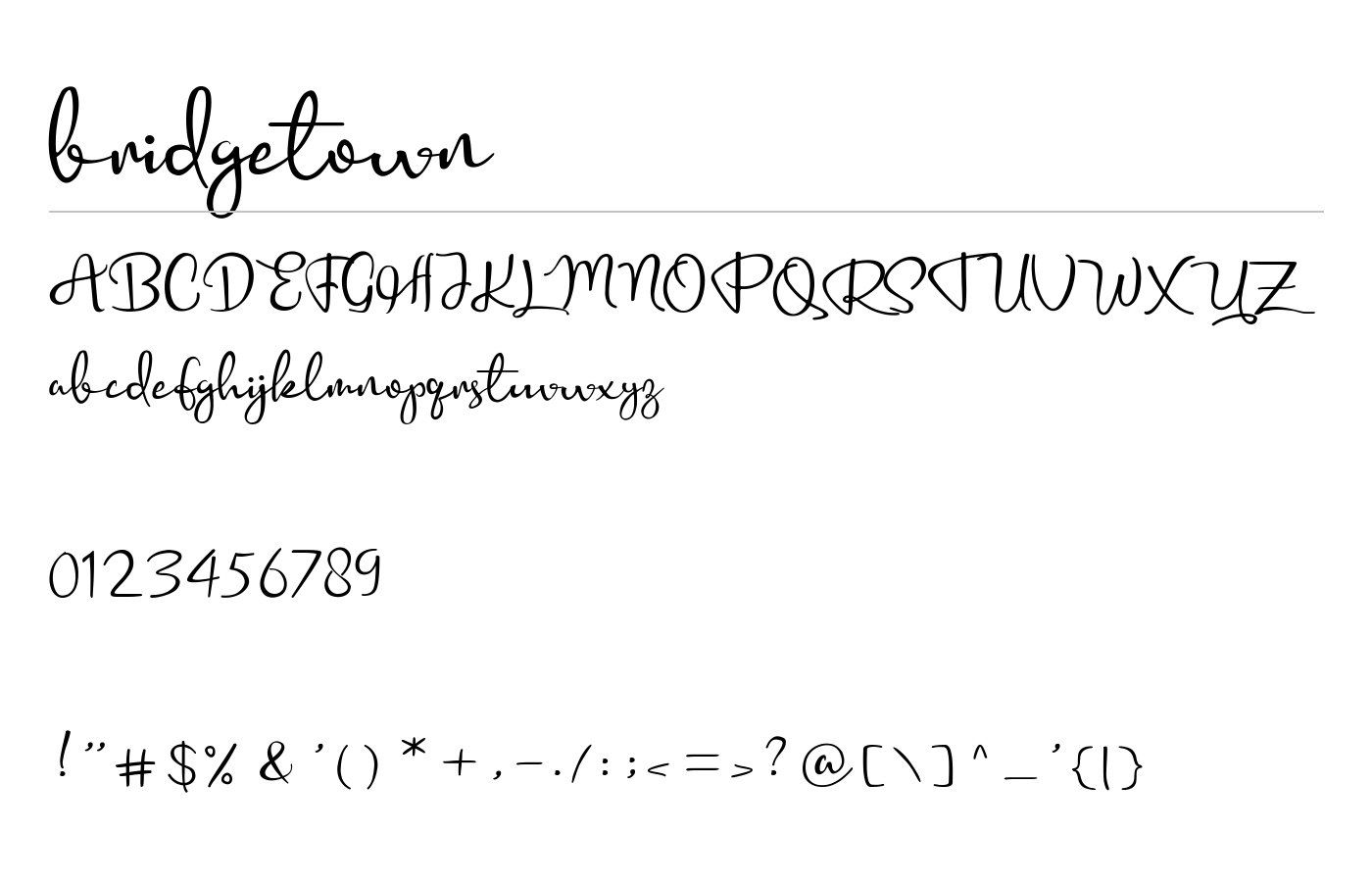
Bridgetown is a delicate and charming script font with a hand-drawn feel, featuring thin, graceful strokes and playful, looping letterforms. Its casual yet elegant style makes it perfect for creative branding, invitations, and feminine designs that want to convey a personal, approachable touch while maintaining sophistication. This font works well in headlines and logos where a stylish, handwritten character is desired.
bridgetown Font
About bridgetown Font